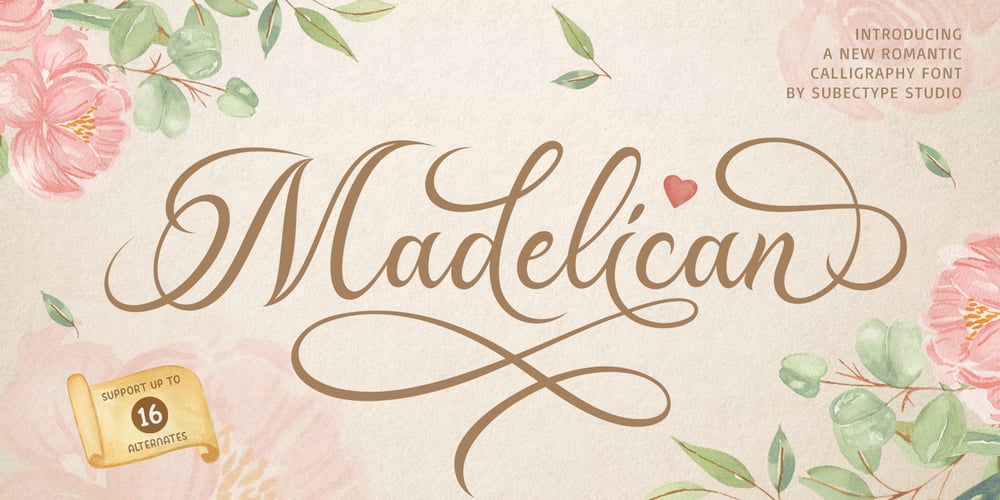
Madelican Font Family was designed by Rangga Subekti and published by Subectype. Madelican contains 1 styles and family package options. Madelican is a beautiful combination of modern and classical calligraphy, inspired by the handwriting of Italian women and ancient manuscripts. I think calligraphy has an advantage for the alternate characters, Madelican has tons of possibilities for just one letter. My exploration of this fonts was not as easy as in my imagination, it took several trial and errors for the perfect balance of the style. Madelican is very suitable for weddings, book covers, greeting cards, logos, branding, business cards and certificates, even for any design work that requires a classic, formal or luxurious touch. Almost all letters have more alternate than others, it is fine because the limitations of the shape of the letters. It must be readable and legible. Every letter that I’ve chose are only the best on it and fit with the character style. Multi-lingual support and up to 16 stylistic alternates. If you do not have programs that support OpenType features like Adobe Illustrator and CorelDraw X Versions, you can access all alternative flying machines using Font Book (Mac) or Character Map (Windows). And feel free contact me if you have a question.